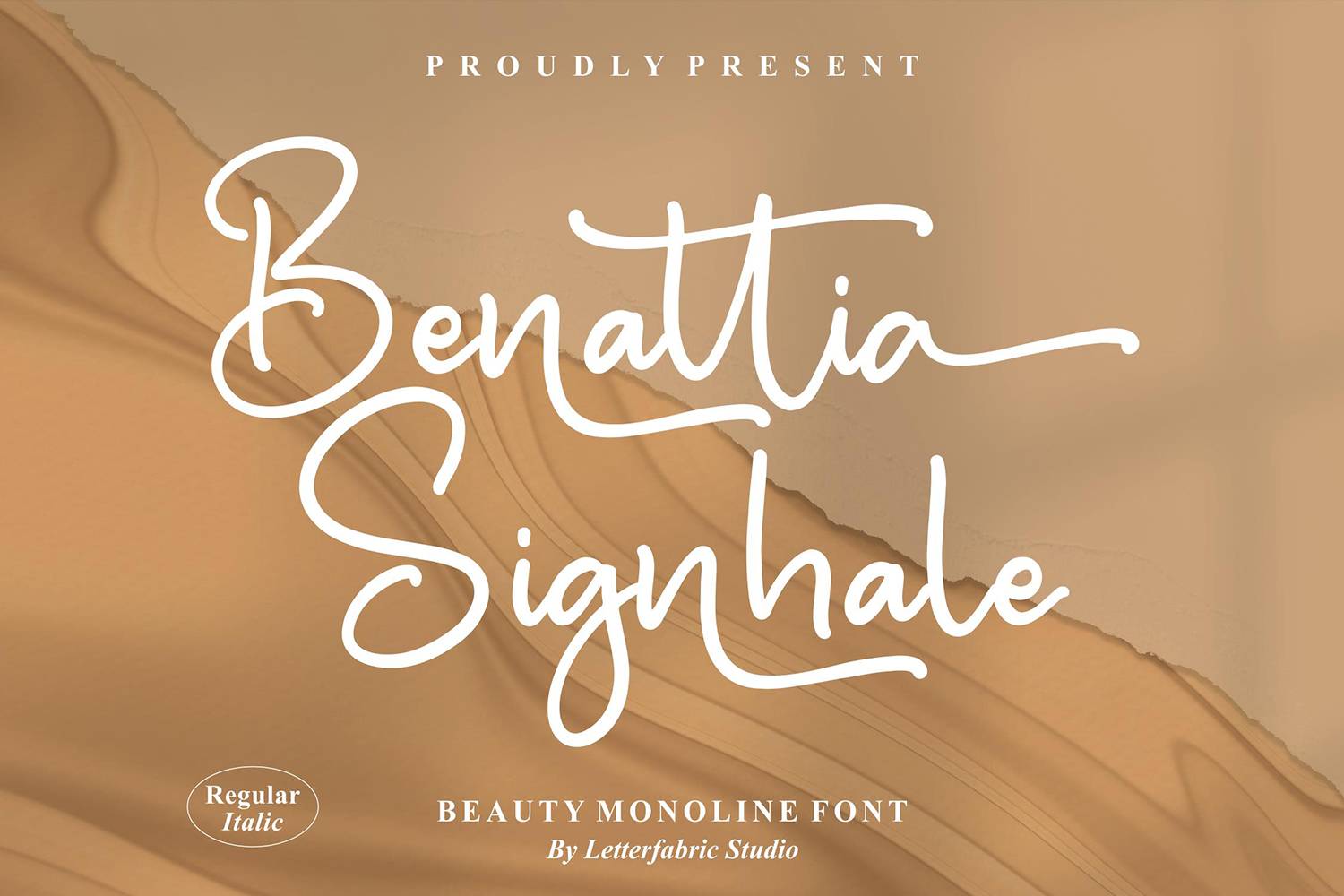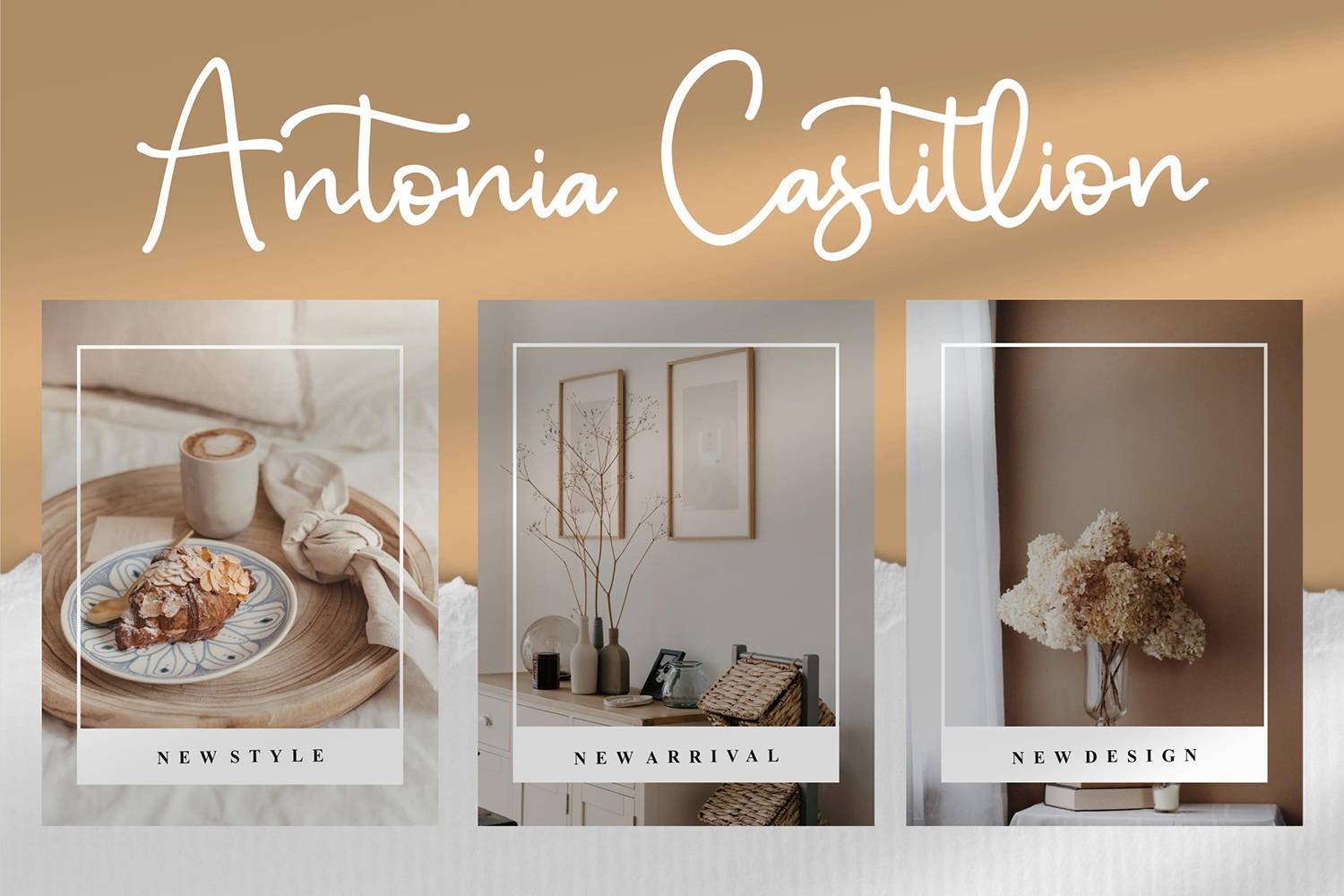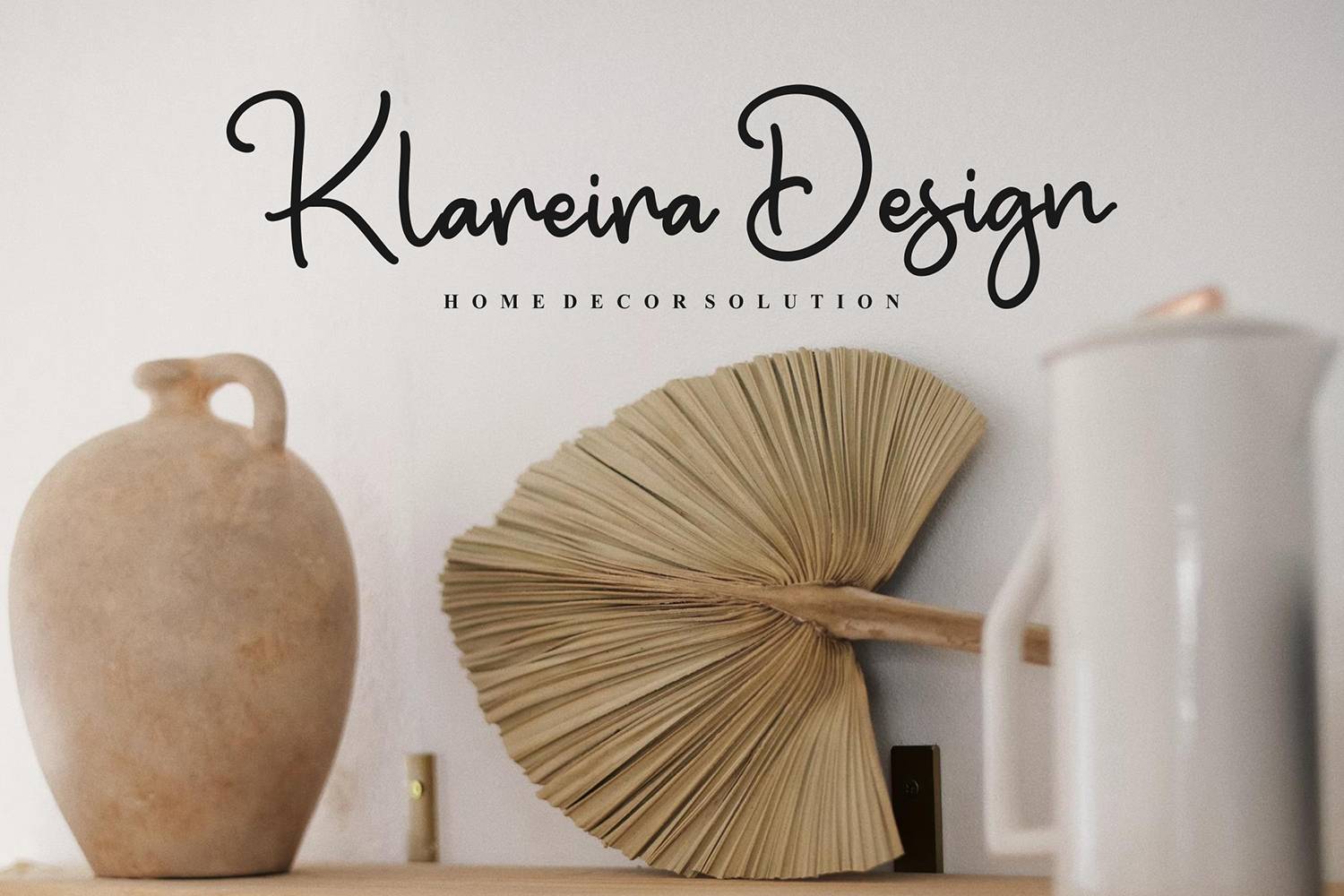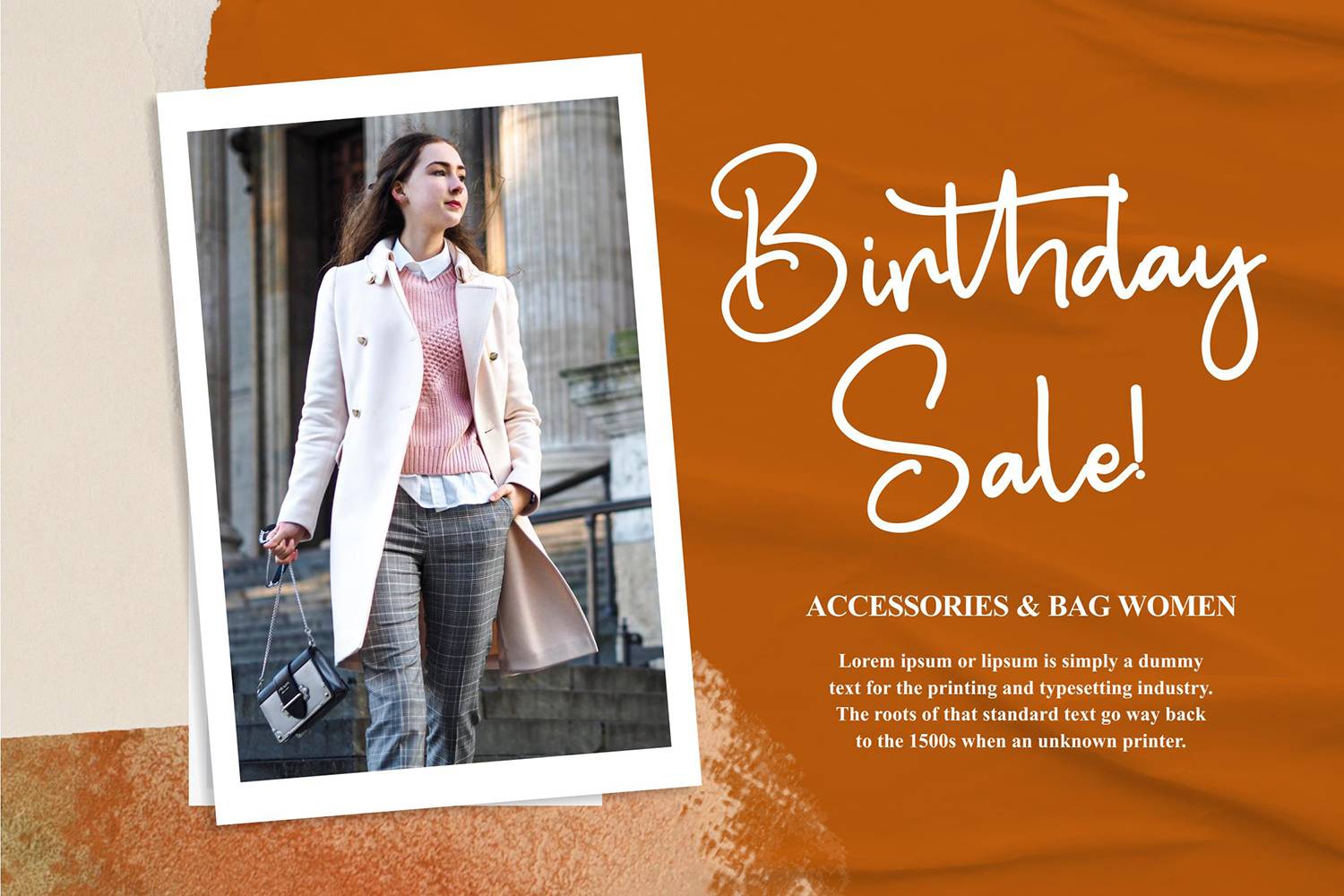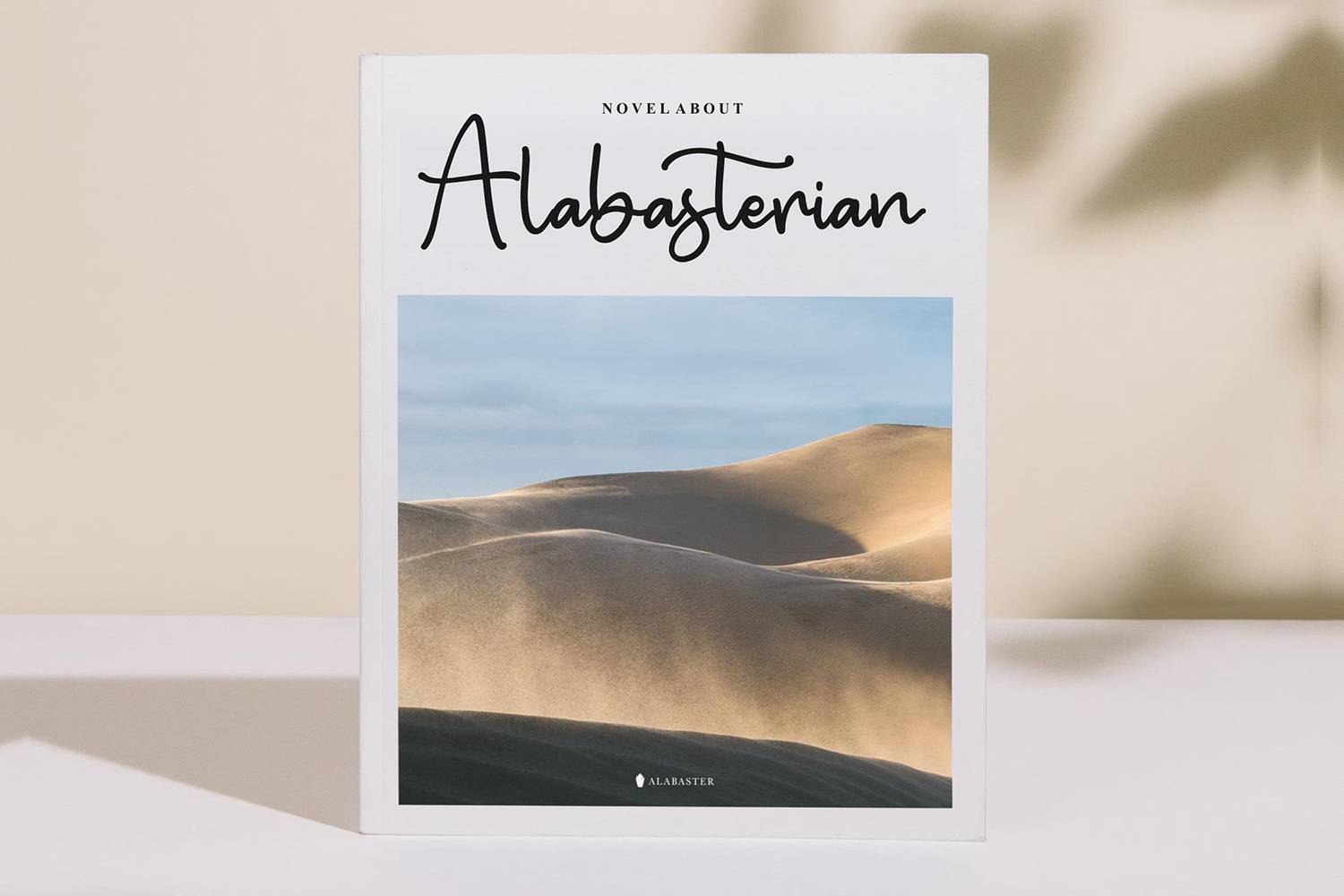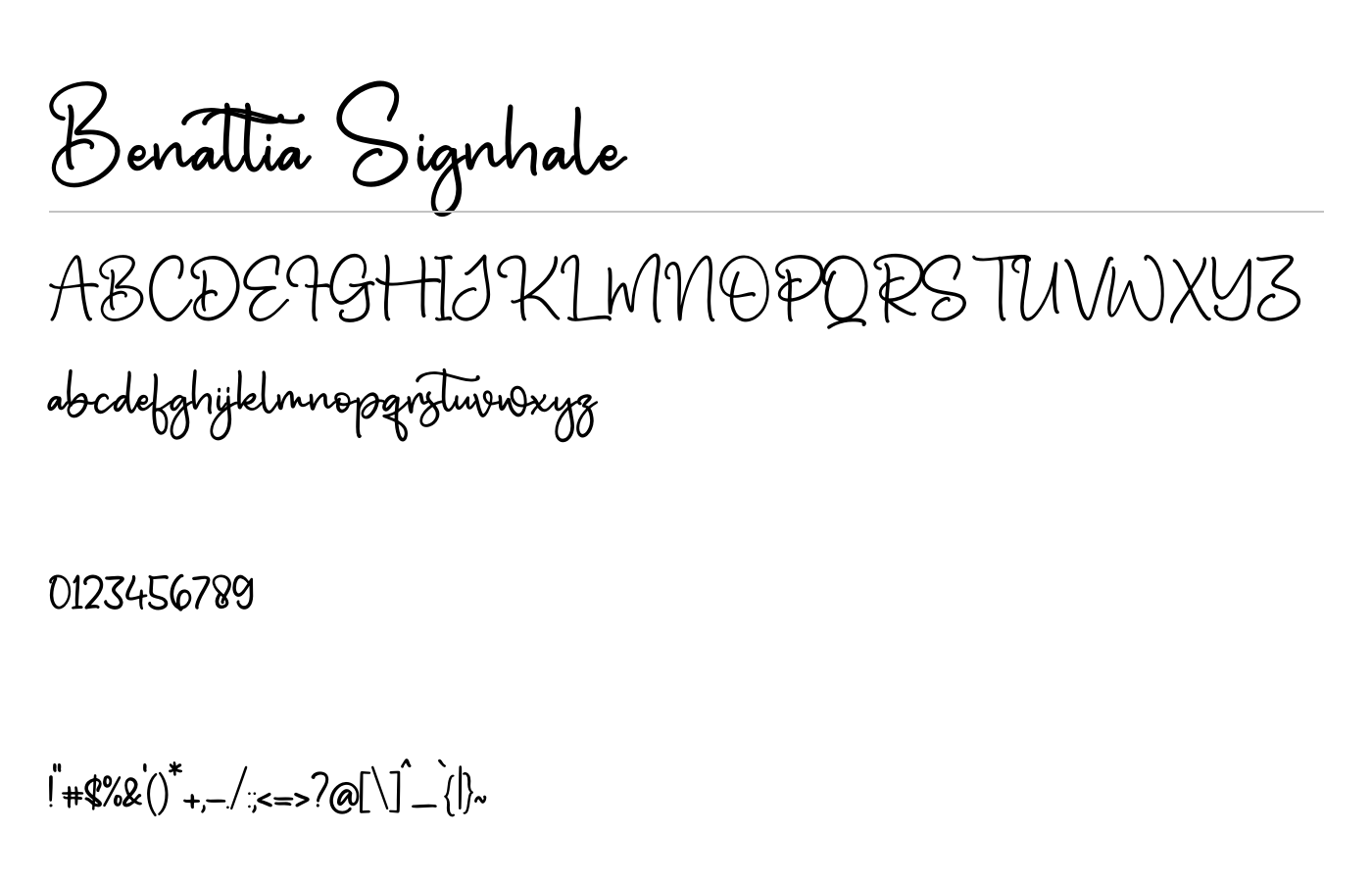
Benattia Signhale is a charming, handwritten script font characterized by its playful and flowing letterforms, with a casual yet elegant feel. Its thin strokes and delicate curves create an approachable and friendly personality, making it perfect for creative projects, invitations, branding, and social media graphics that seek a personal, handcrafted touch. This font works ideally in headlines and display uses where a warm, artistic vibe is desired.
Benattia Signhale Font
About Benattia Signhale Font